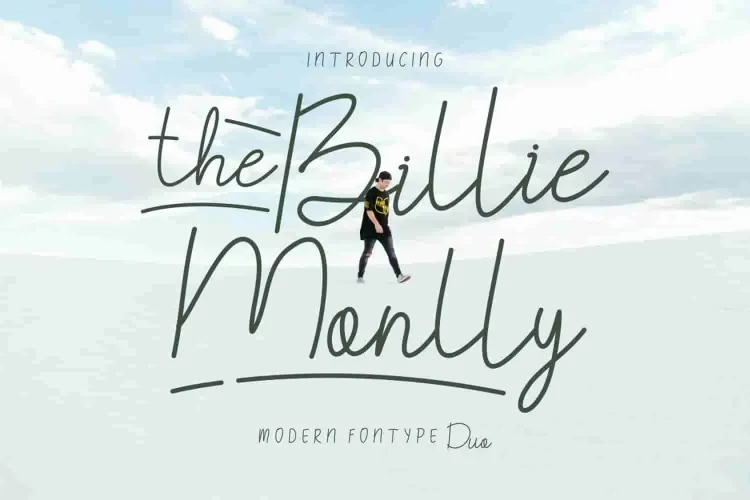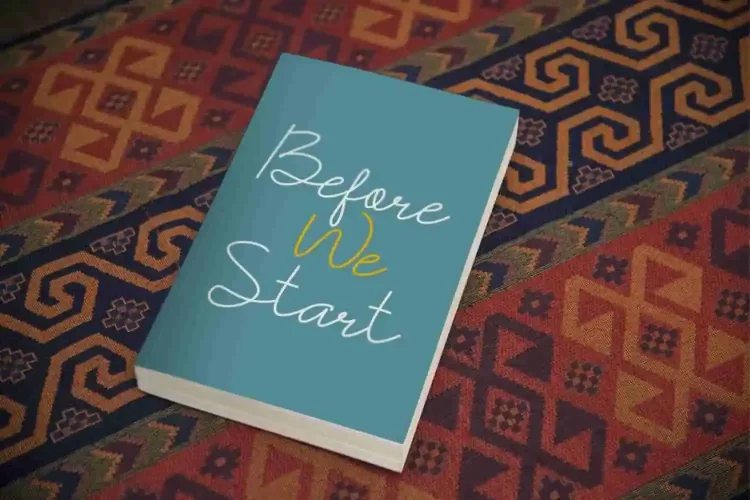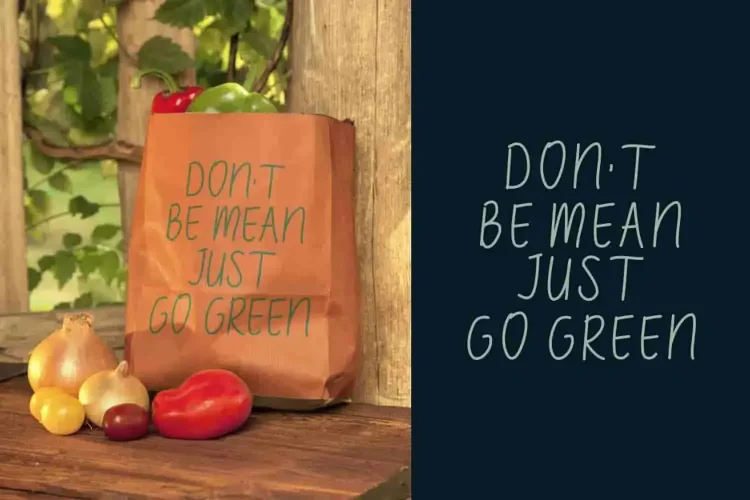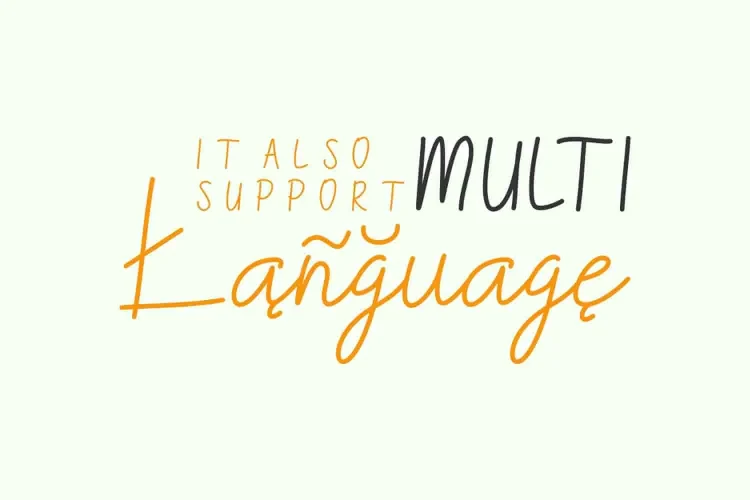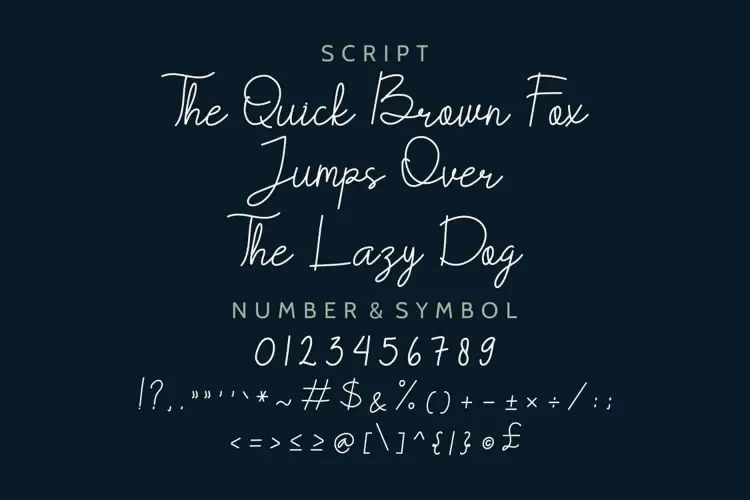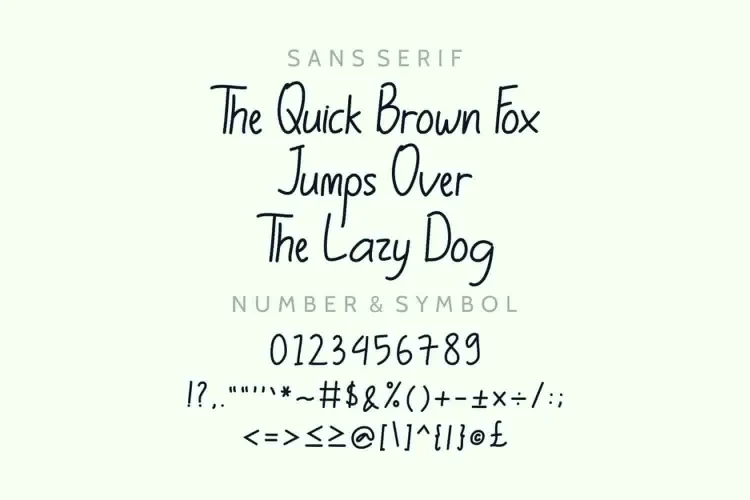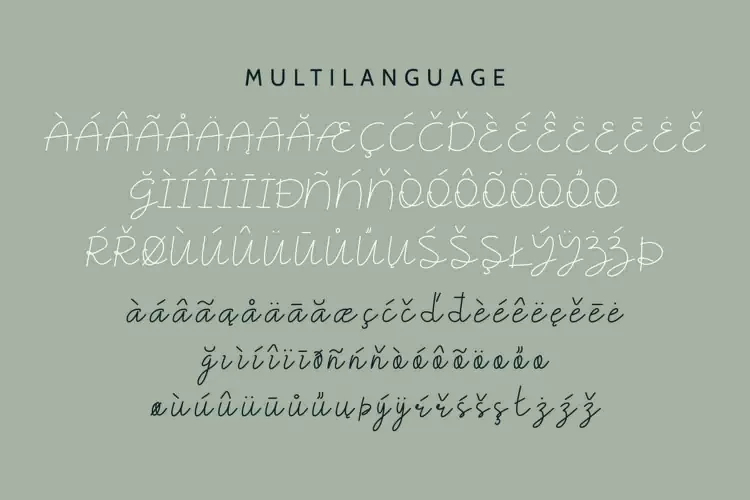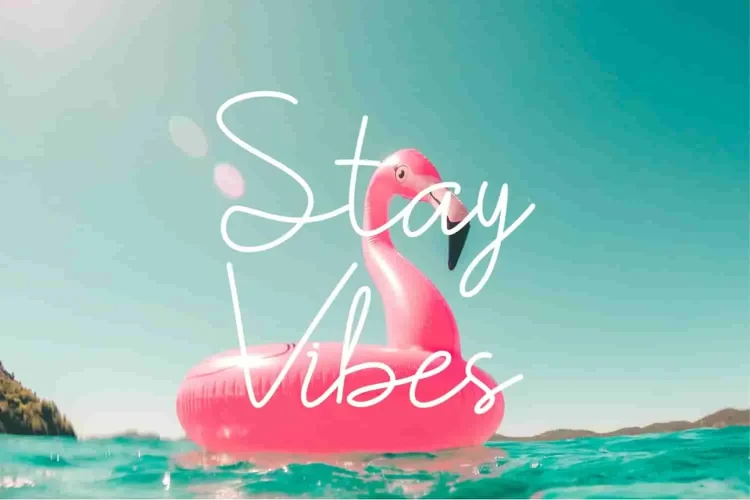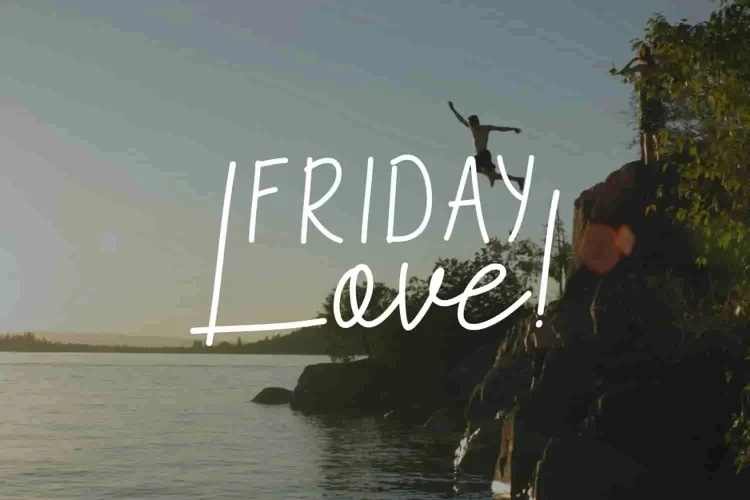
The Billie Monlly Font Duo
Please meet our newest font : The Billie Monlly! It is a font family with a unique glyphs. It has two styles : Script Handwritten and Sans.
The Billie Monlly features two complementary styles in one powerful package:
• Script Handwritten Font – flowing, expressive, and beautifully handcrafted
• Modern Sans Serif Font – clean, minimalist, and highly legible
Because of this thoughtful pairing, you can mix and match both styles seamlessly. Whether you’re designing branding, social media content, logos, invitations, or product packaging, this duo gives your work a harmonious and unique aesthetic.
✨ What Makes It Special?
To begin with, every glyph in The Billie Monlly is designed with precision. The script style has a casual, handwritten look that adds warmth and personality. On the other hand, the sans serif font brings balance with its clear lines and modern feel.
As a result, you can use it in a wide range of creative projects — from fashion lookbooks and beauty product labels to business cards, magazines, and more. Moreover, its elegant contrast helps your message stand out while keeping your brand identity consisten
Need support for multiple languages? The Billie Monlly includes multilingual glyphs, making it ideal for global brands.
In short, if you want a professional font duo that’s both elegant and functional, The Billie Monlly delivers. It brings beauty, clarity, and flexibility—all in one stylish bundle.